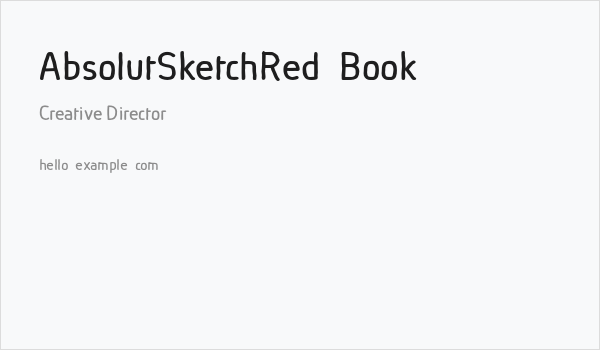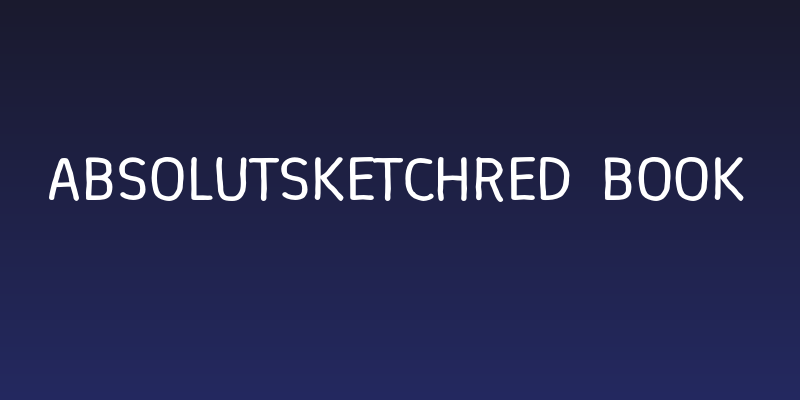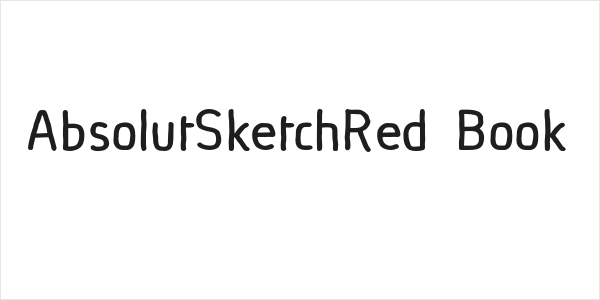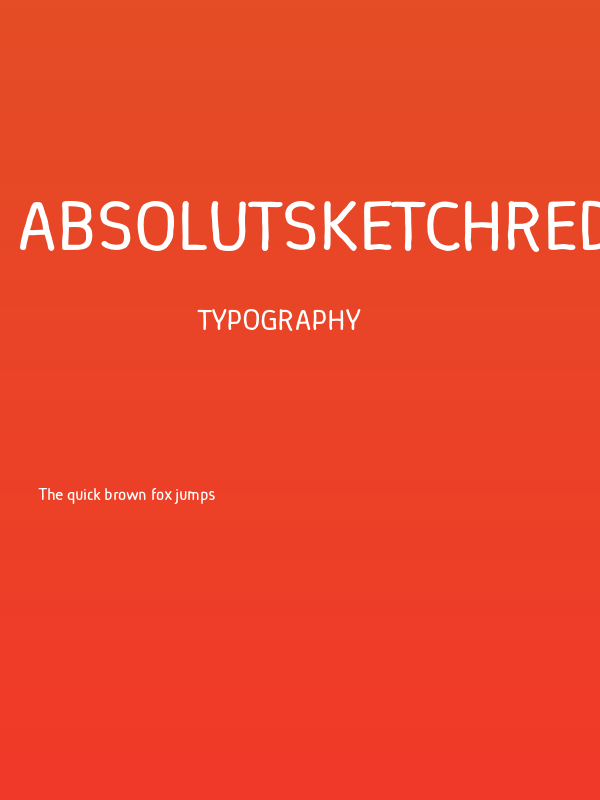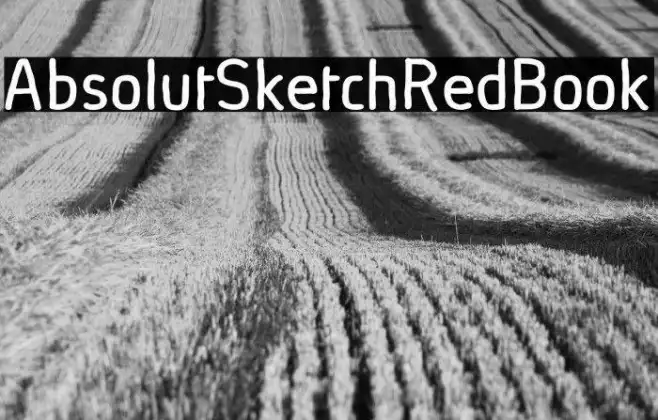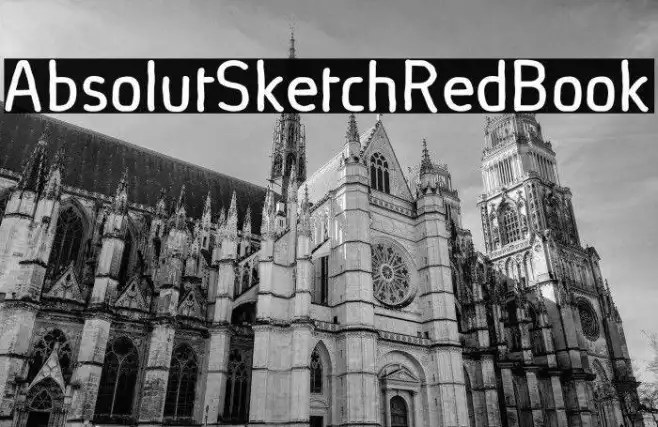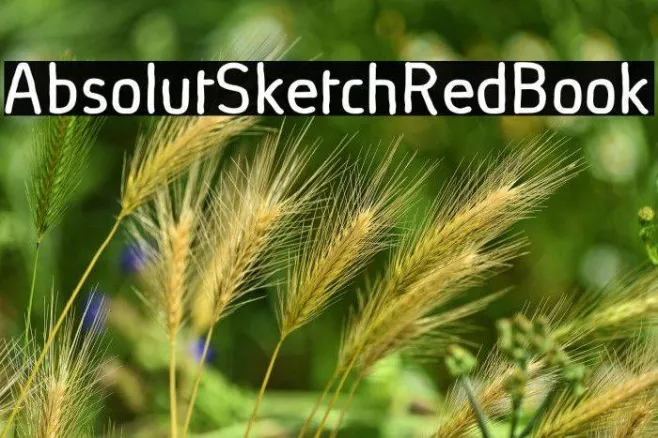
AbsolutSketchRed-Book Font
AbsolutSketchRed-Book Description
This font features a playful and hand-drawn aesthetic, characterized by its uneven strokes and slightly irregular letterforms. The uppercase and lowercase letters maintain a consistent style, with rounded edges and a casual, friendly appearance. The font's organic feel is enhanced by its sketch-like quality, making it appear as though it was drawn with a marker or brush. The characters are well-spaced, providing a balanced and readable text. This font is ideal for projects that require a personal touch or a creative, informal vibe.
| Overall Style | Casual, Creative |
| Proposed Projects | Ideal for children's books, creative posters, greeting cards, and informal branding. |